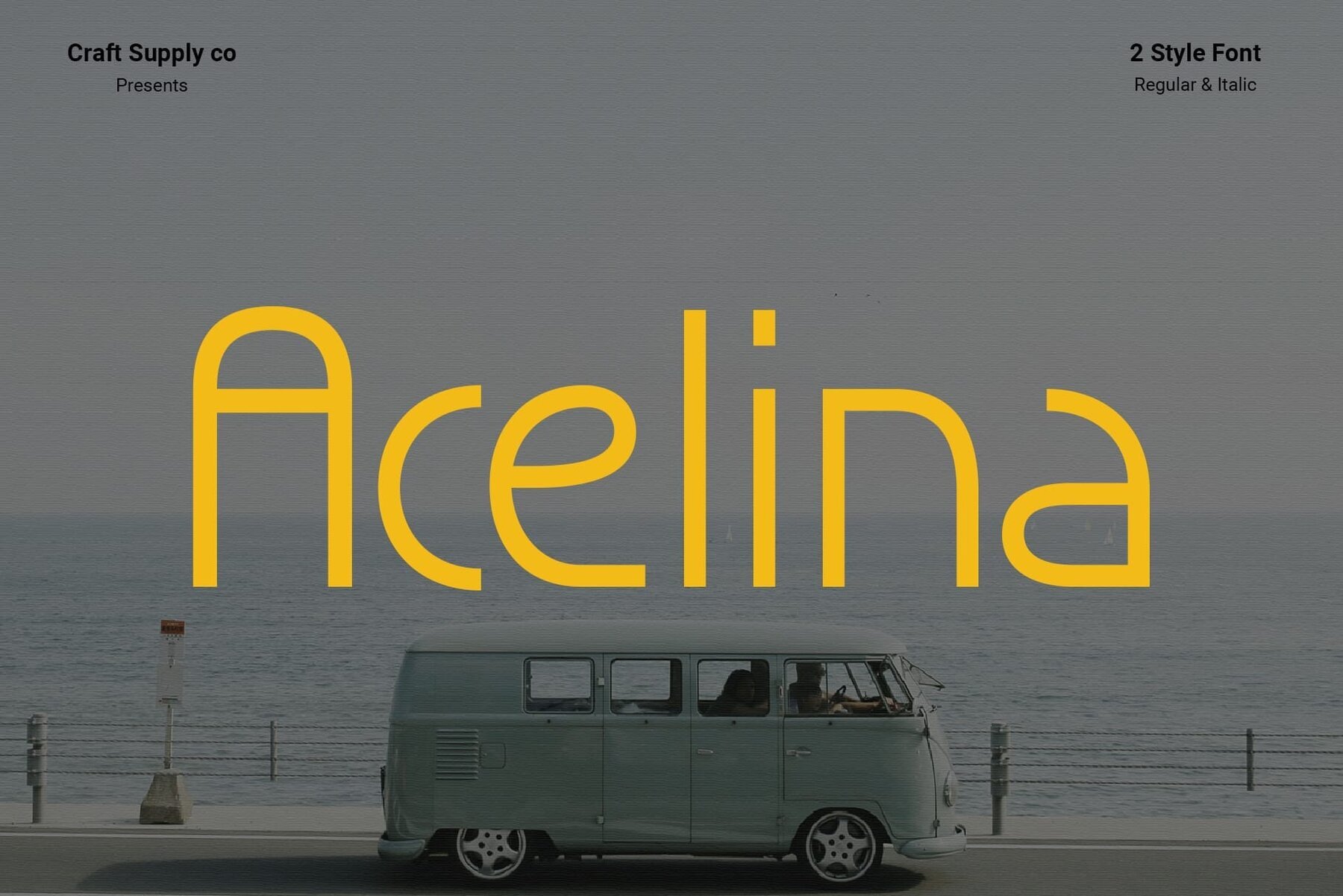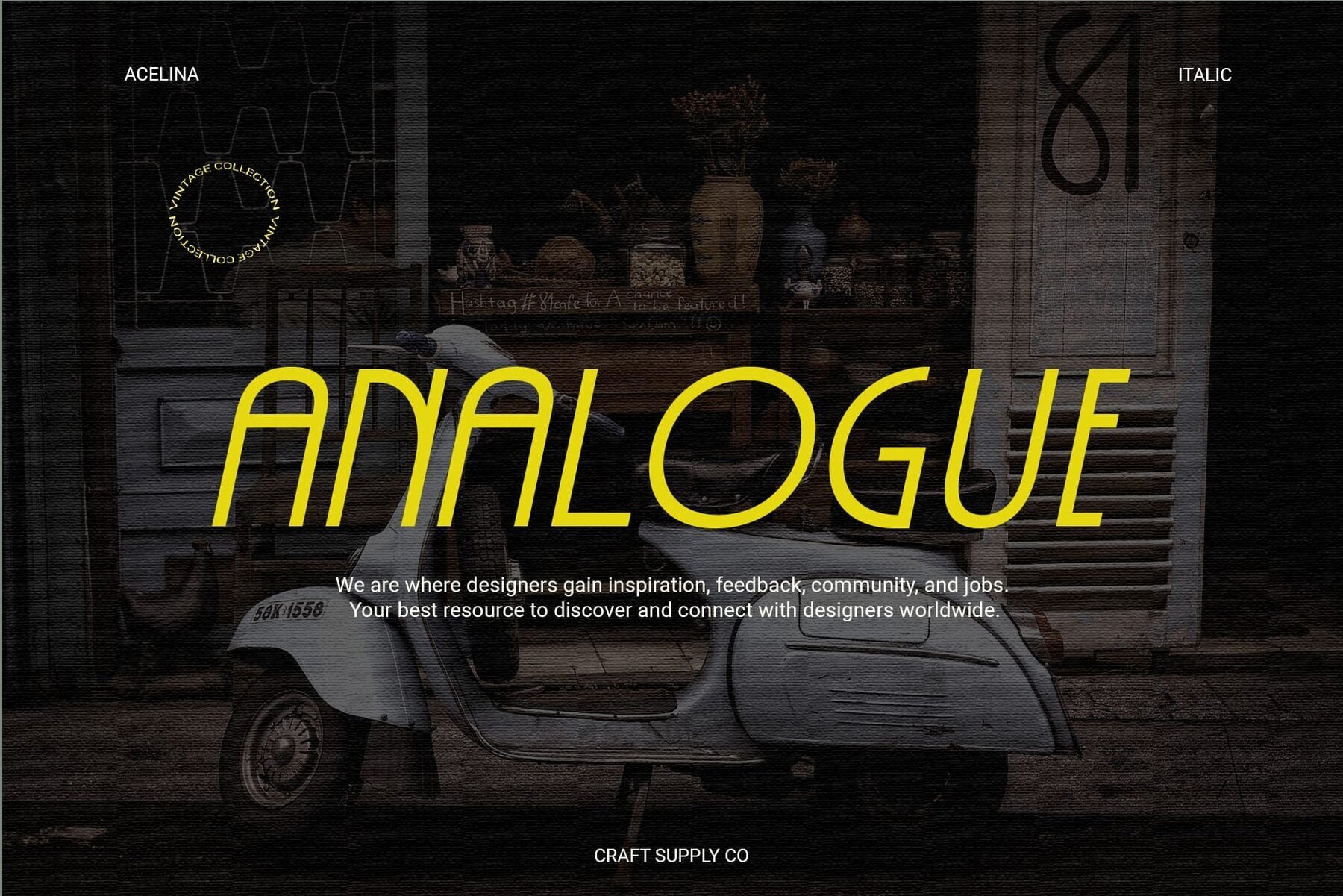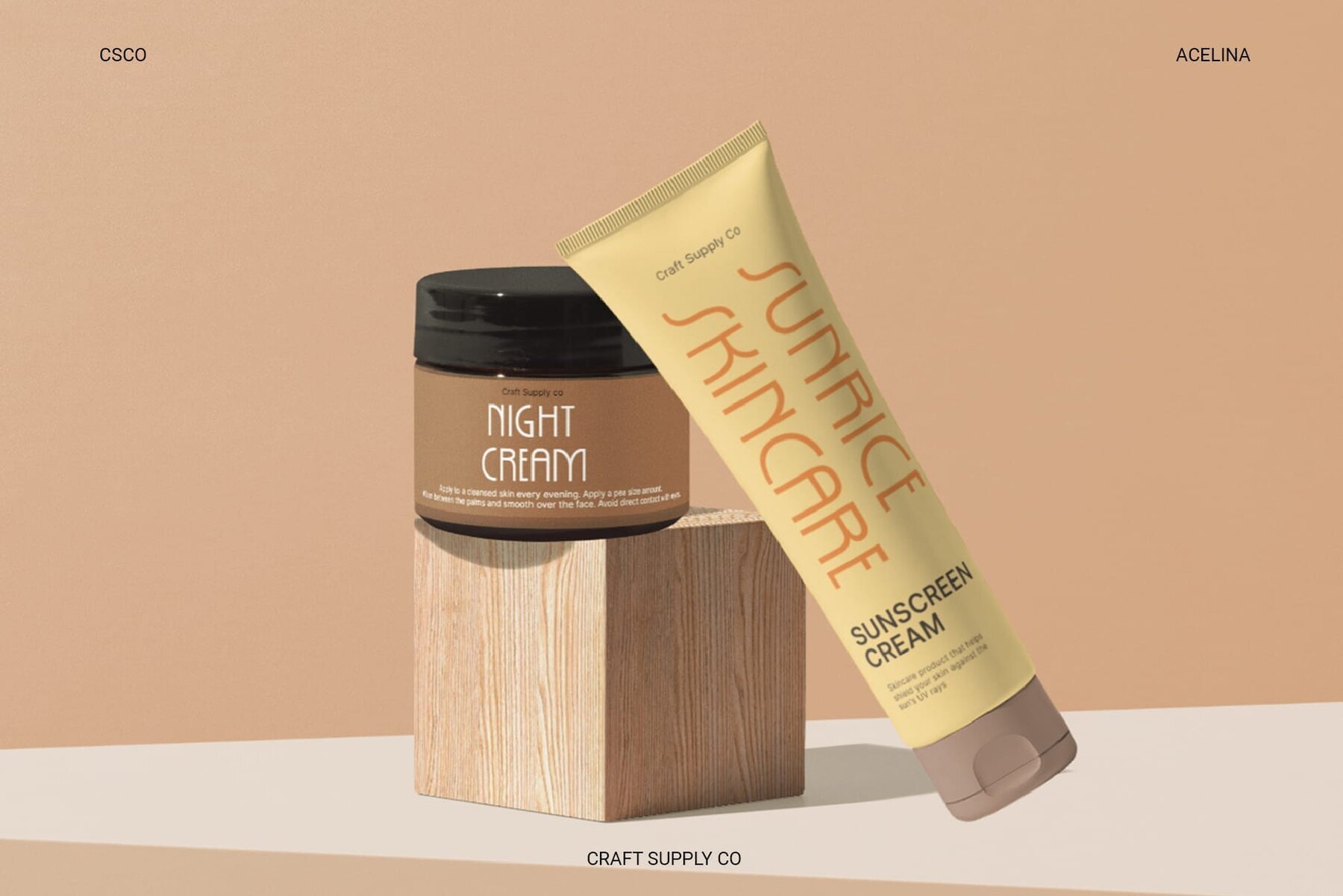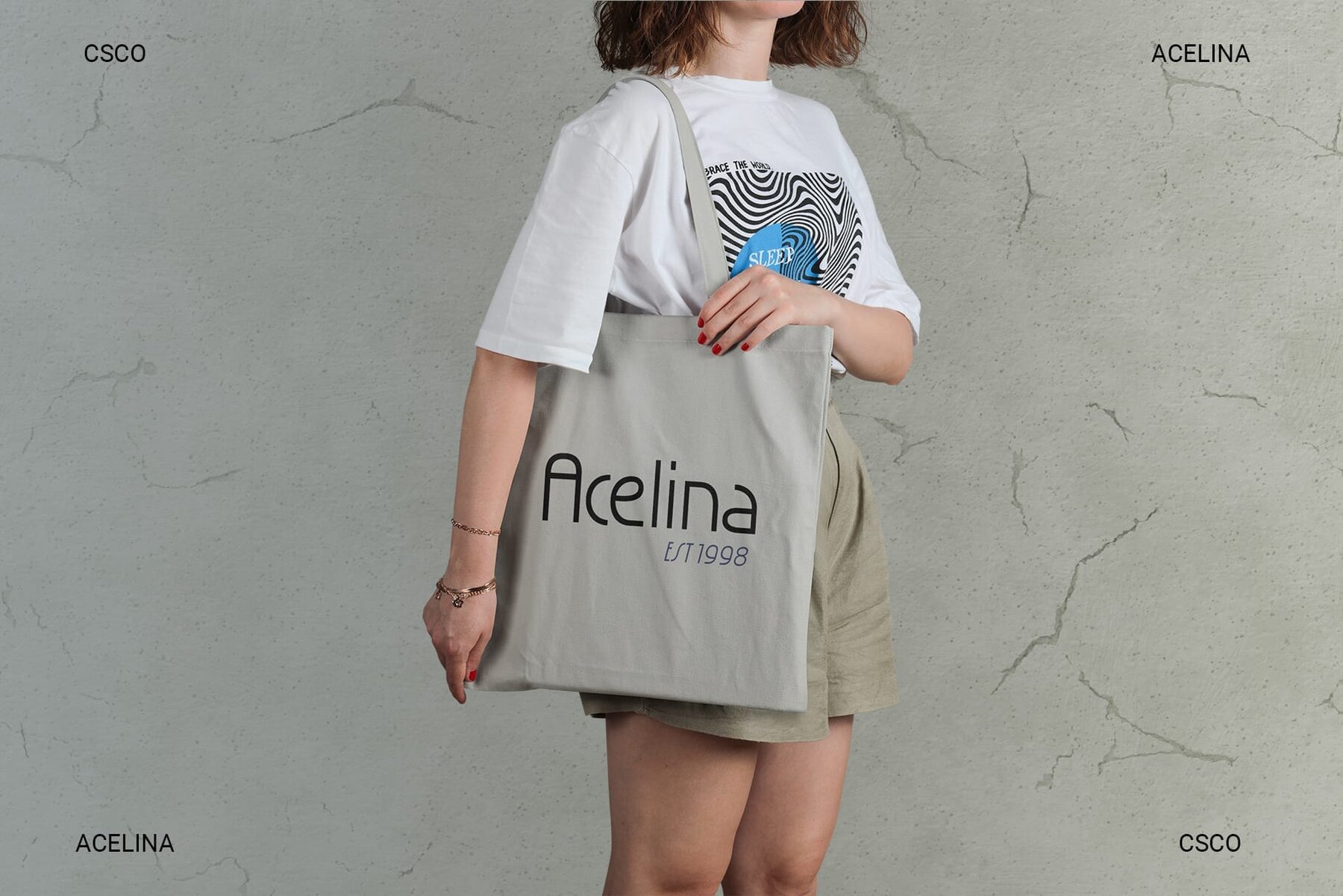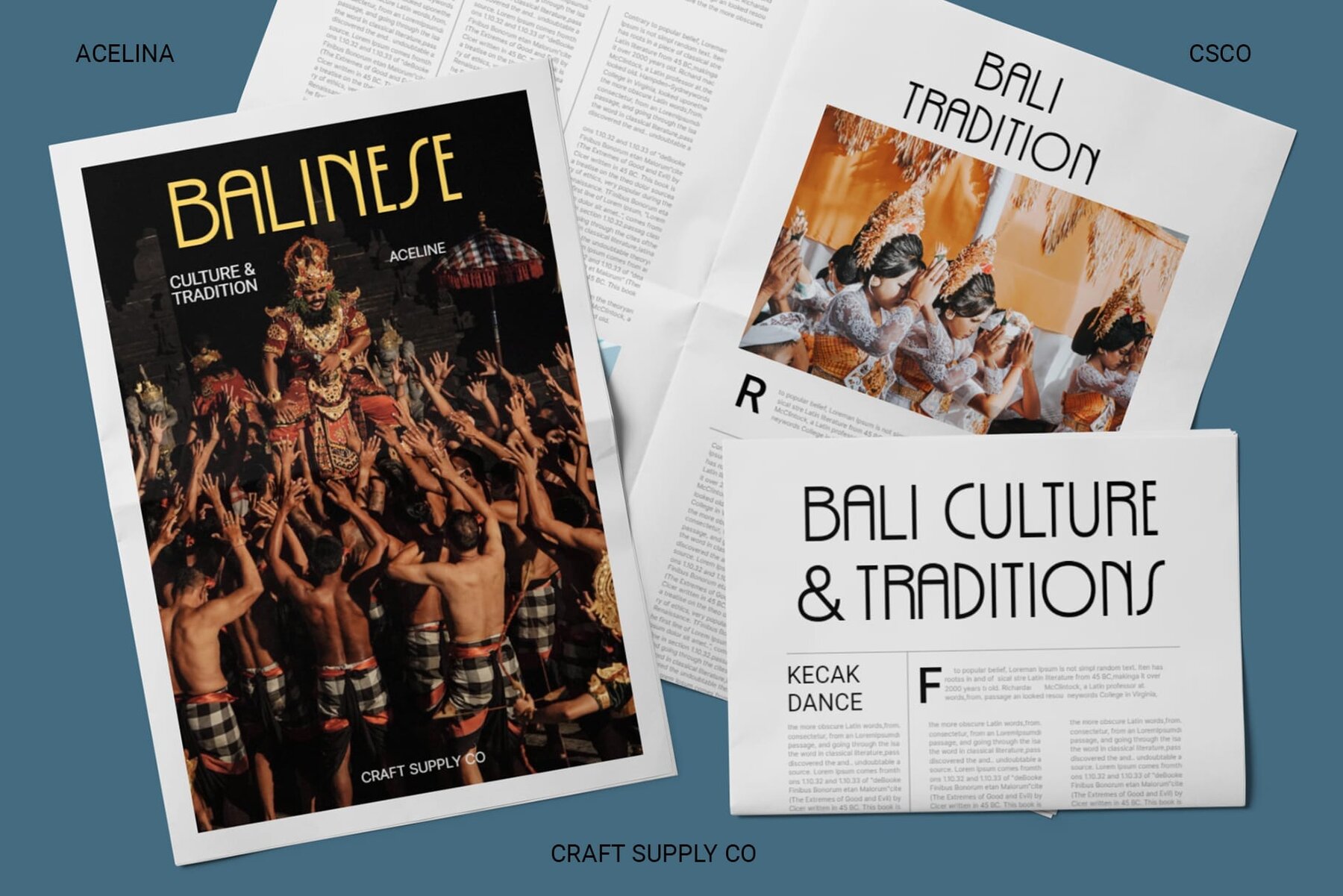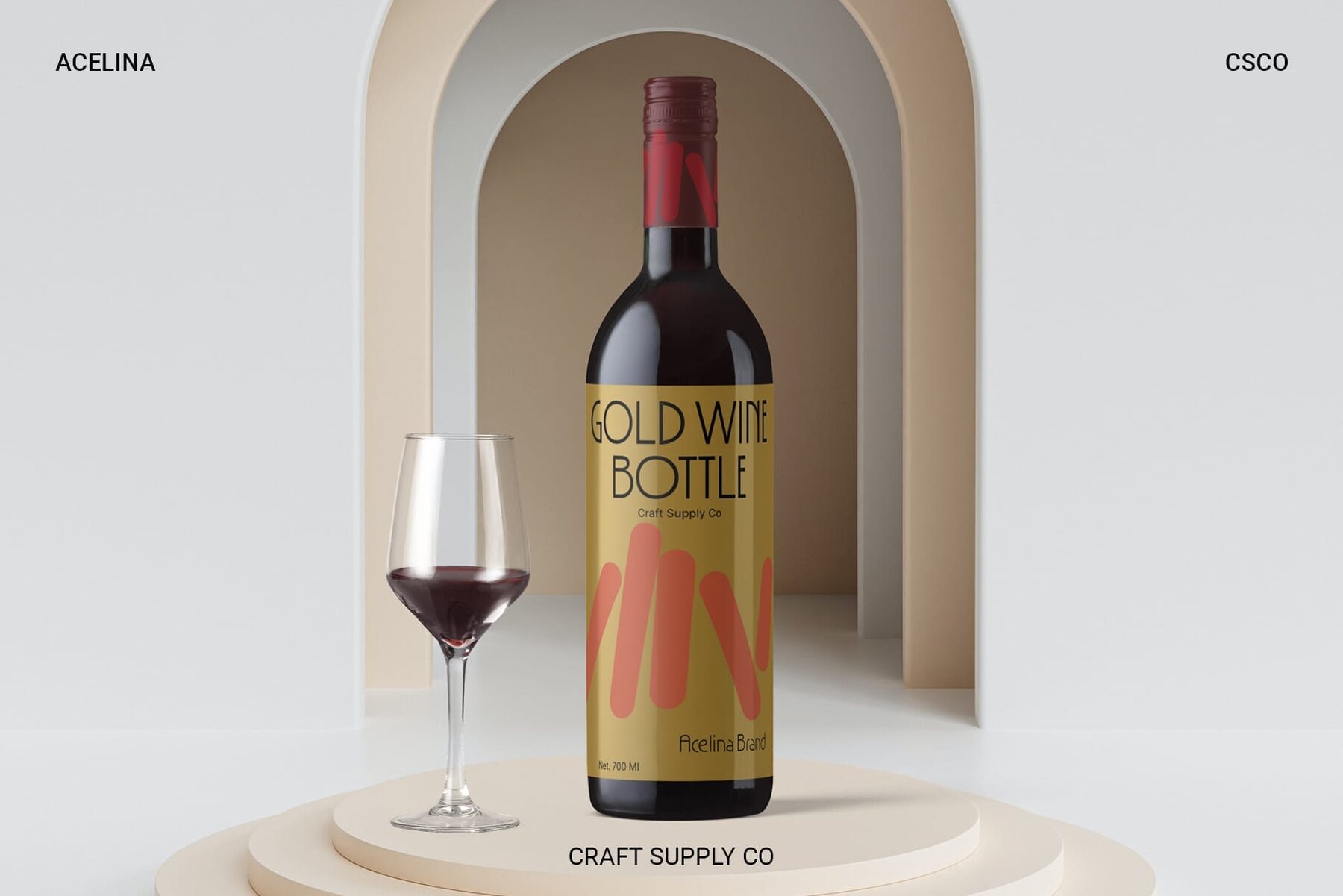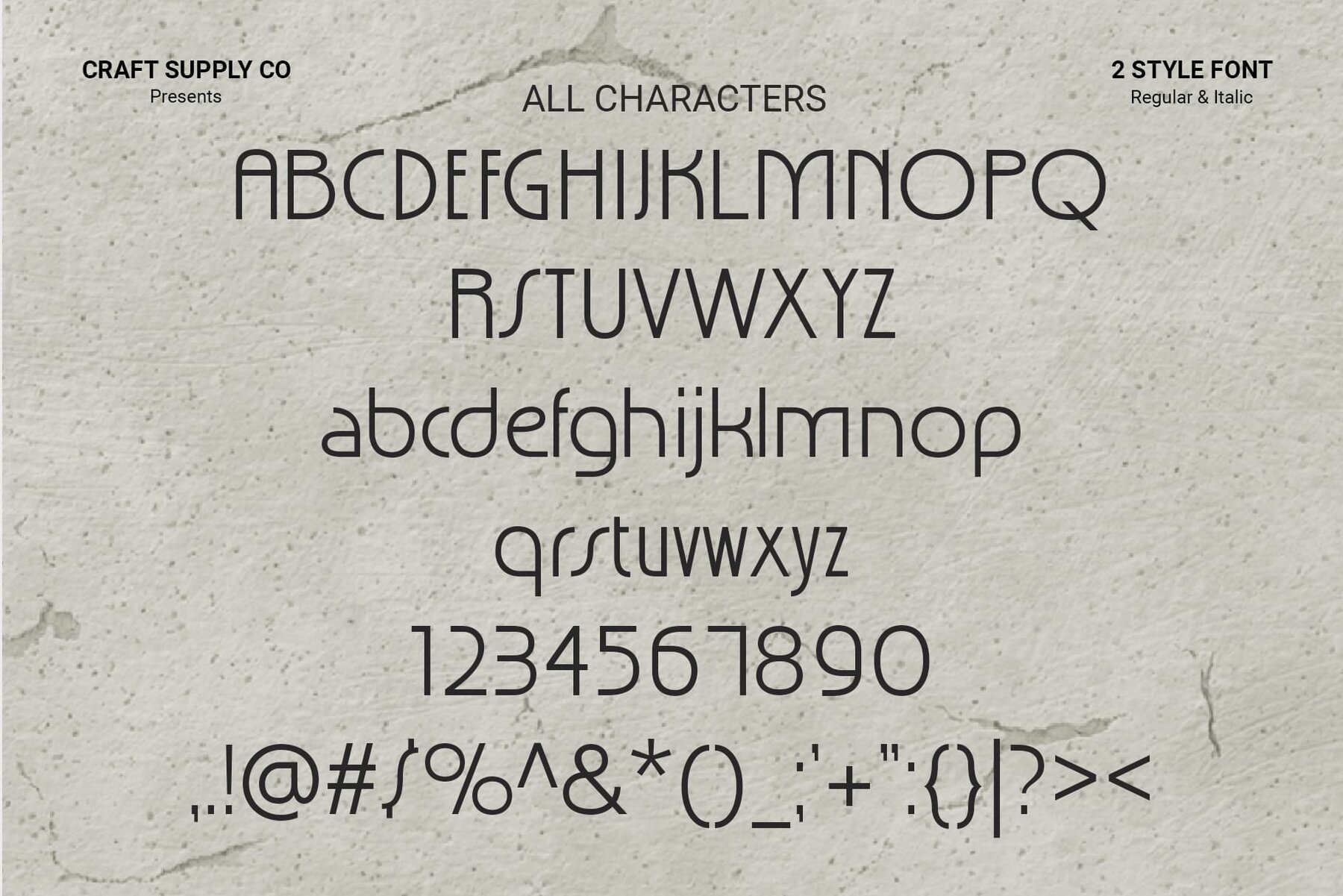
Acelina Font
Acelina is a monoline Sans-Serif font that exudes timeless simplicity, perfect for those seeking a harmonious and clean aesthetic. Acelina brings a touch of seamless elegance with its monoline structure, offering a sense of balance and clarity to any design. Designed with meticulous precision, Acelina stands out with each character crafted to maintain a consistent and clean appearance. Whether for a corporate document, website, or print material, Acelina adapts seamlessly. It ensures your content appears effortlessly neat and professional. Embrace the modernity of Acelina, where simplicity isn’t just a style but a statement. This font brings clarity and sophistication to your design, ensuring a lasting impact. Acelina is more than a font; it’s a design companion that speaks the language of simplicity. Elevate your projects with this monoline sans-serif, a testament to clean elegance that transcends trends. Acelina can be used without any specialized software. If you have any inquiries or need assistance, please feel free to contact us. We appreciate your support in enhancing your creative projects!Acelina Font: The Essence of Simplicity in Monoline Sans Serif
Seamless Elegance
Meticulous Precision
Versatility Unleashed
Modern Simplicity
In Conclusion